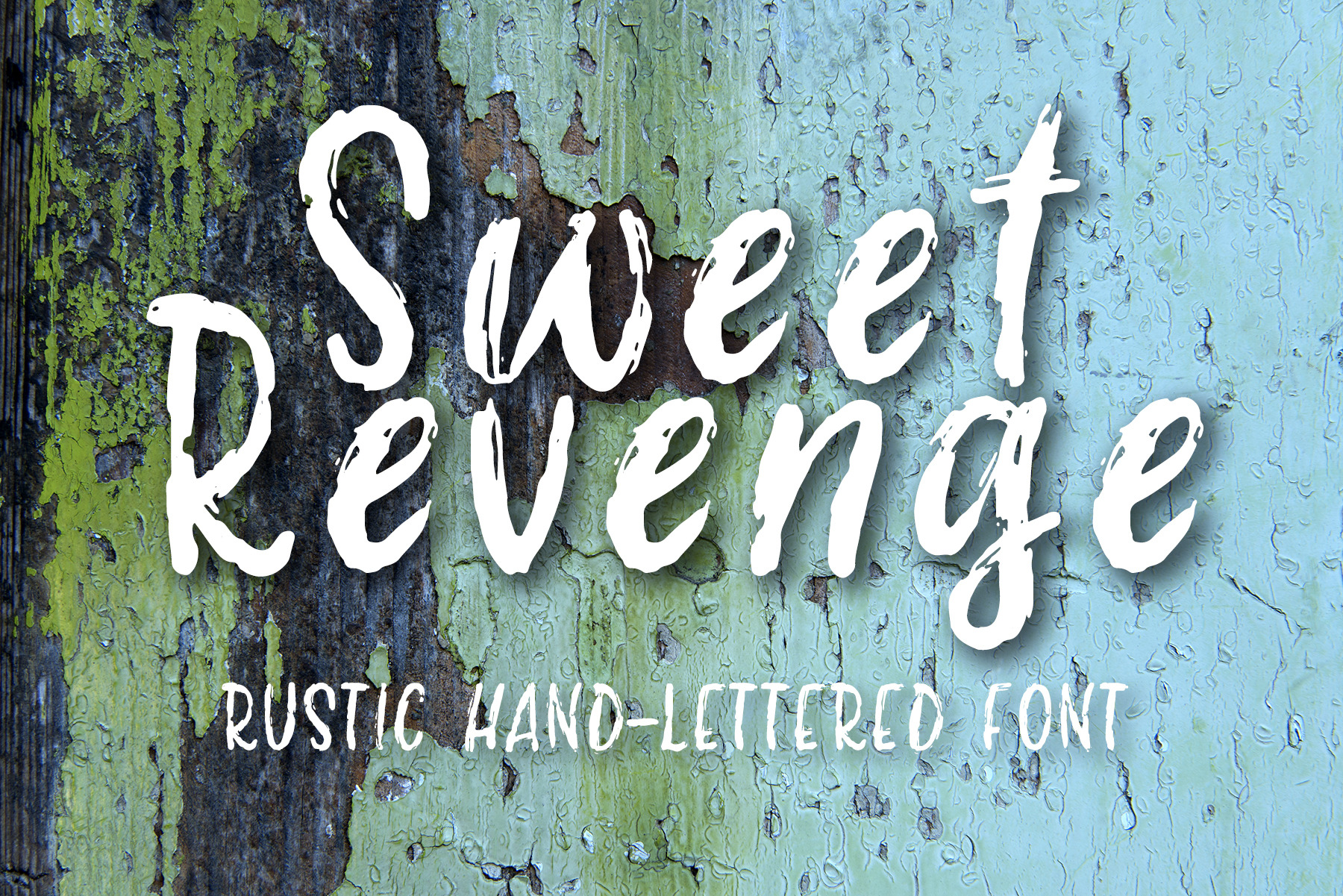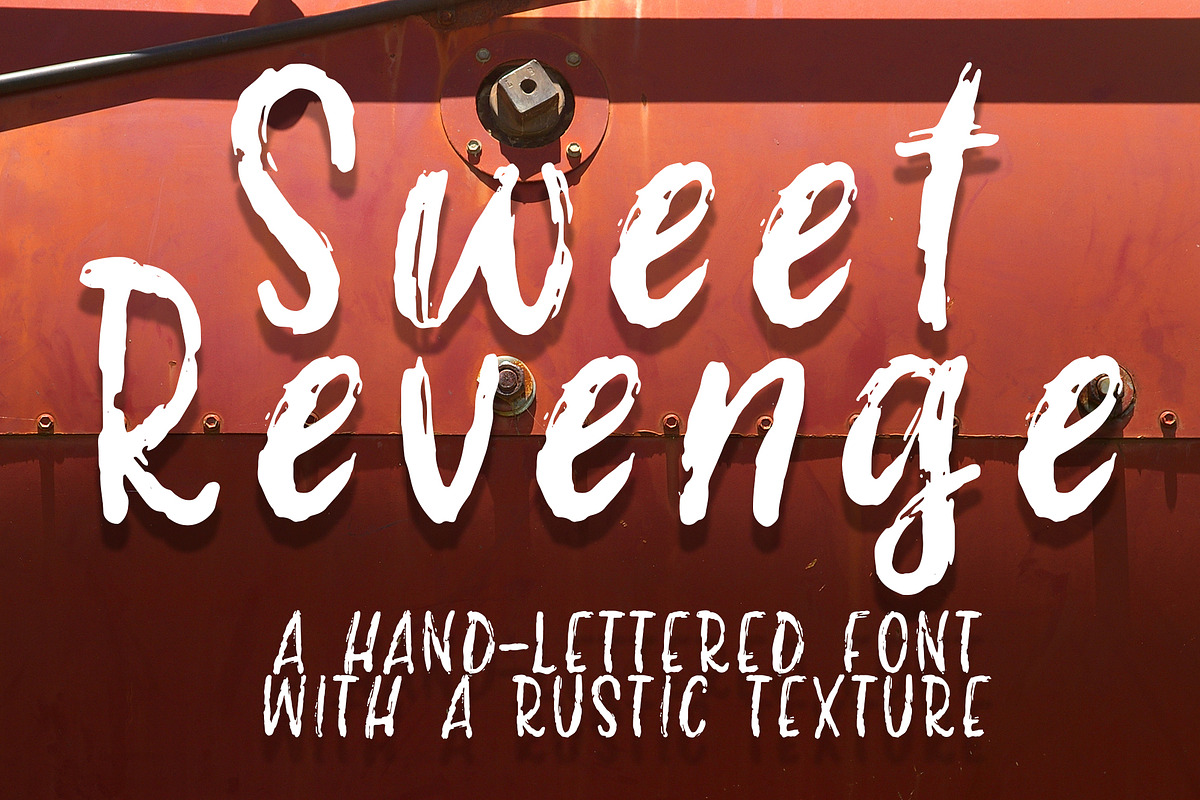
Sweet Revenge hand-lettered font
Sweet Revenge is a hand-lettered font with a rustic texture perfect for giving your design projects a unique, handmade touch. This font is great for cards, products, posters, and logos and can be used for both personal and commercial projects.
- Common punctuation
- Diacritics
- Western European language support